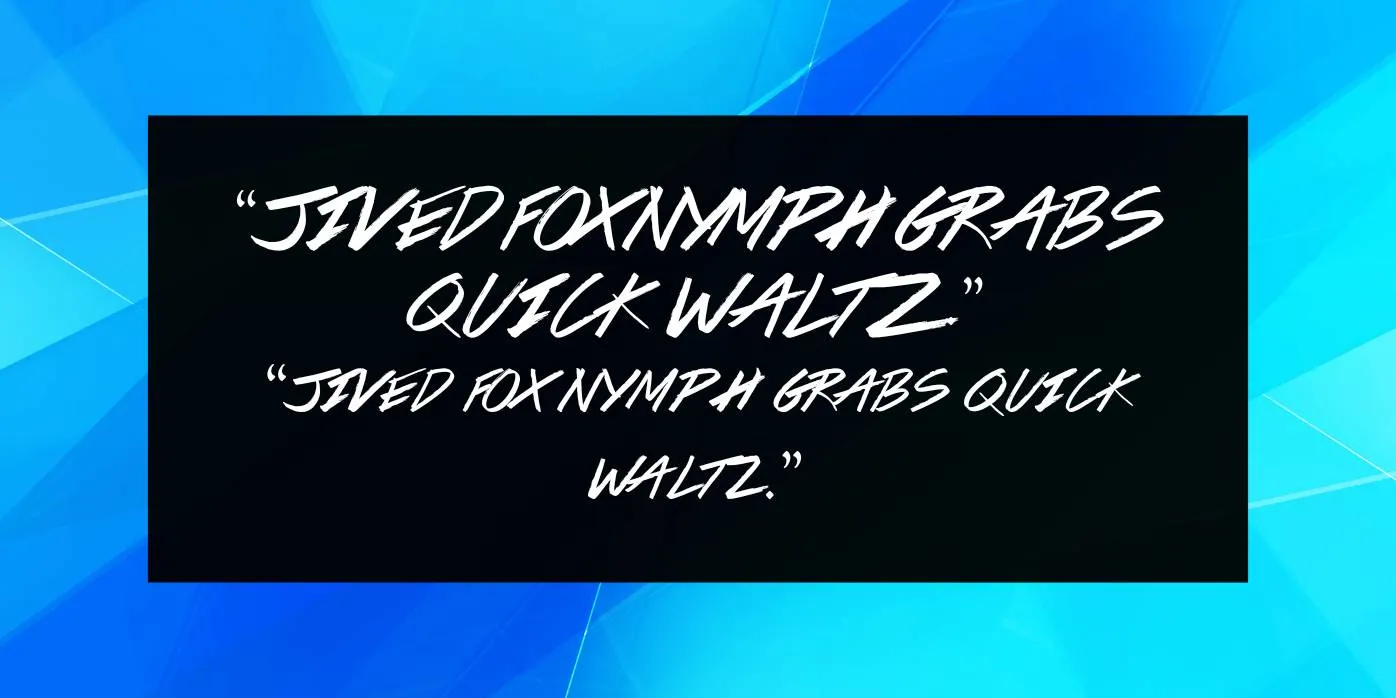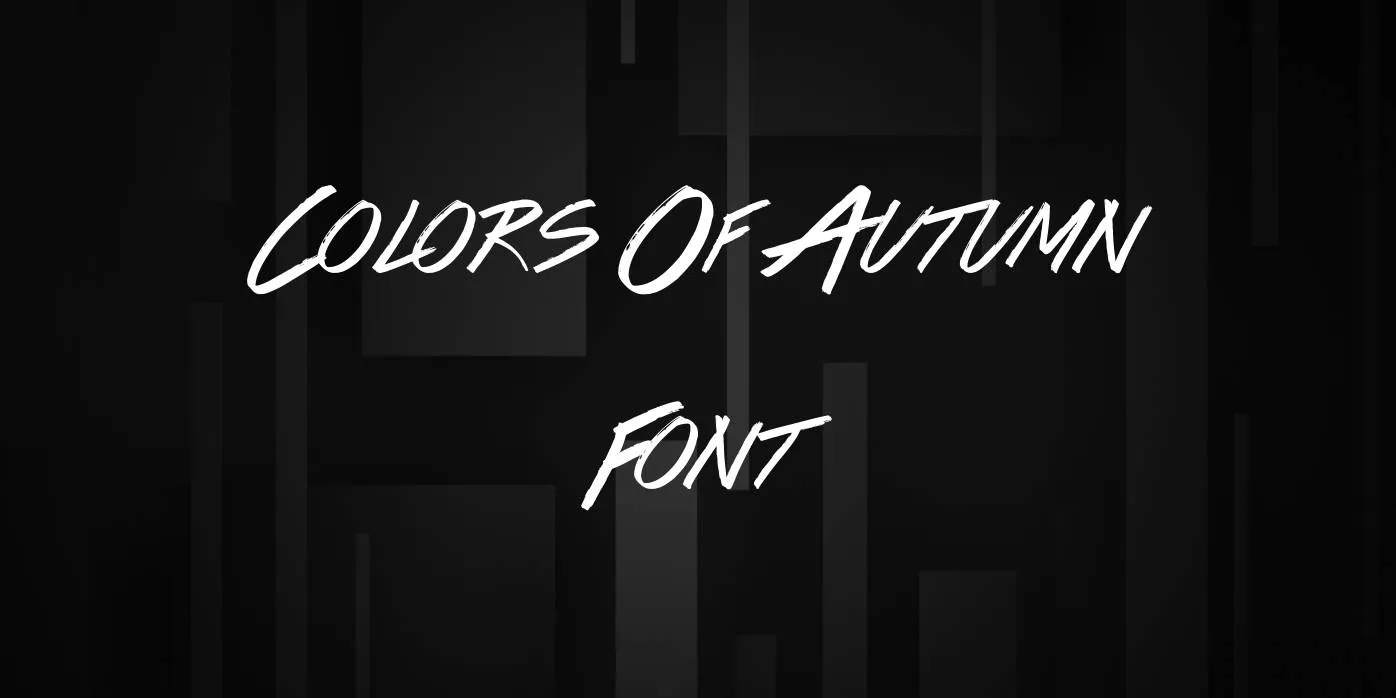
Colors Of Autumn Font
The colors of Autumn Font have eternal beauty due to the stylish, readable, thin, and fantastic text. This is a handwritten typeface that was designed by Jonathan S. Harris. The typeface is available on this website in a zip file.